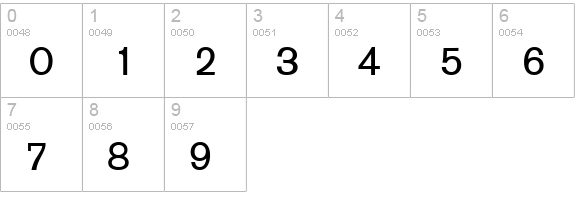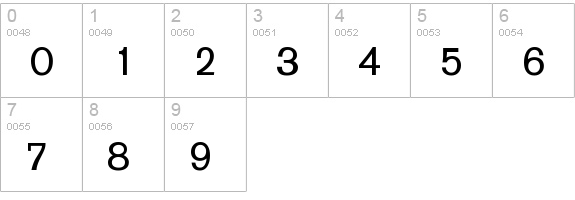
A750-Sans-Oldface-Regular is the standard, neutral variant in the A750 typeface family \xE2\x80\x94 well suited to general body text, paragraphs, and standard typographic work.
The A750-Sans-Oldface-Regular font is a timeless and elegant typeface that exudes a sense of sophistication and refinement. With its classic design and clean lines, this font is perfect for a wide range of design projects, from elegant invitations to professional presentations. What sets A750-Sans-Oldface-Regular apart is that it is not only beautifully crafted but also completely free for personal and commercial use. This means that you can download and use this font without any restrictions, making it a versatile and cost-effective choice for all your design needs. To get your hands on the A750-Sans-Oldface-Regular font, simply visit FontsMarket.com where it is freely available for download. Don't miss out on this opportunity to enhance your projects with a high-quality and stylish font that won't cost you a penny.